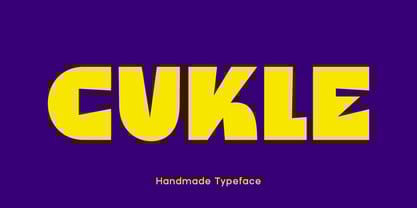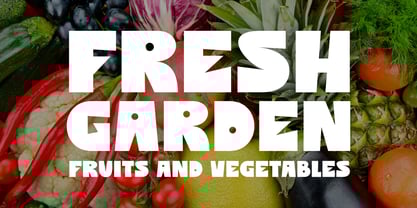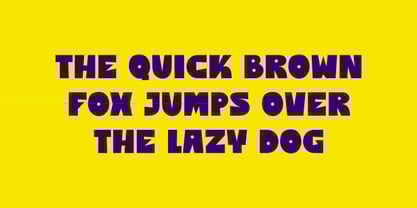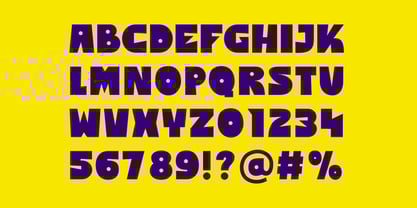
Cukle
by ESEM Type
The Cukle Font Family was designed by Szymon Mandziarz and published by ESEM Type. Cukle contains 1 styles.
Cukle is a modern font, distinguished by its bold structure. Optimally simplified with expressive sharp shapes. It consists of capital letters. Cukle Display Font is ideal for graphic designs with an intriguing style. The font will work well in poster design, branding, logo design and clothing branding.